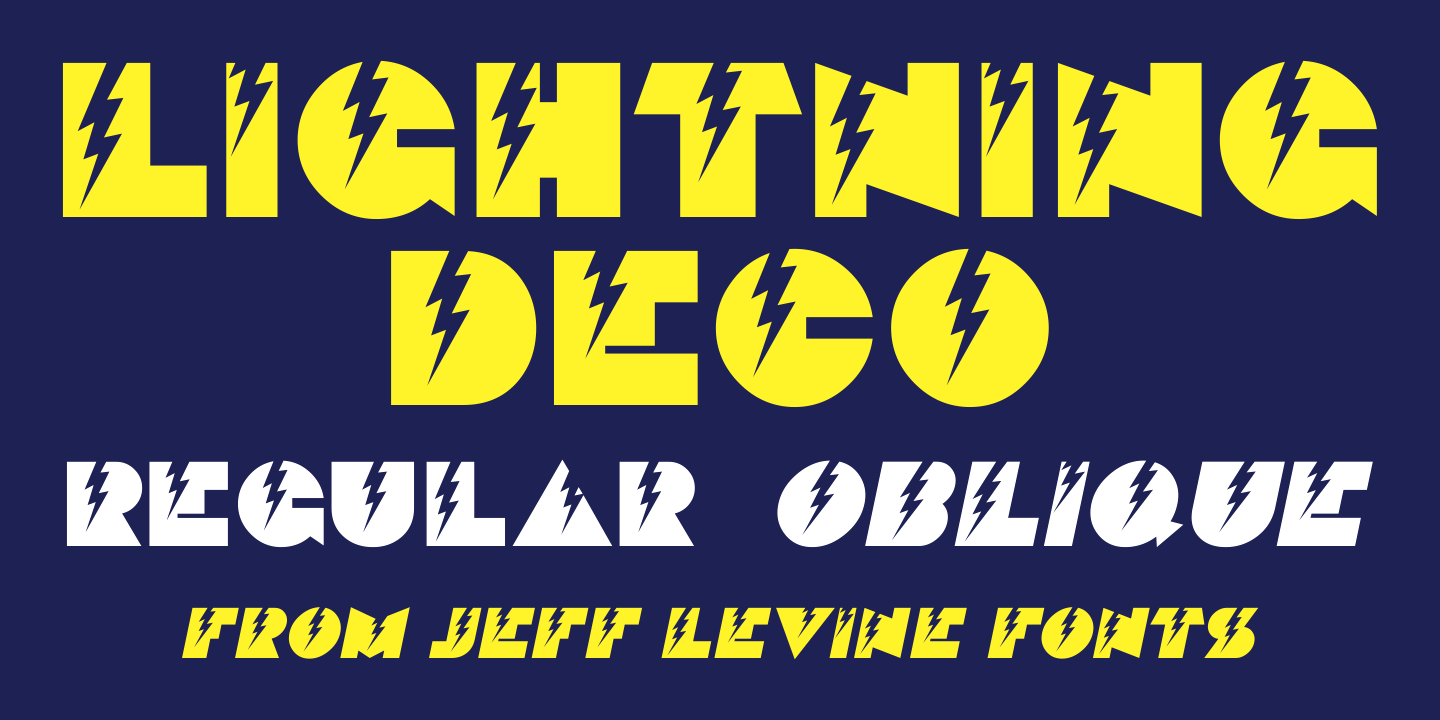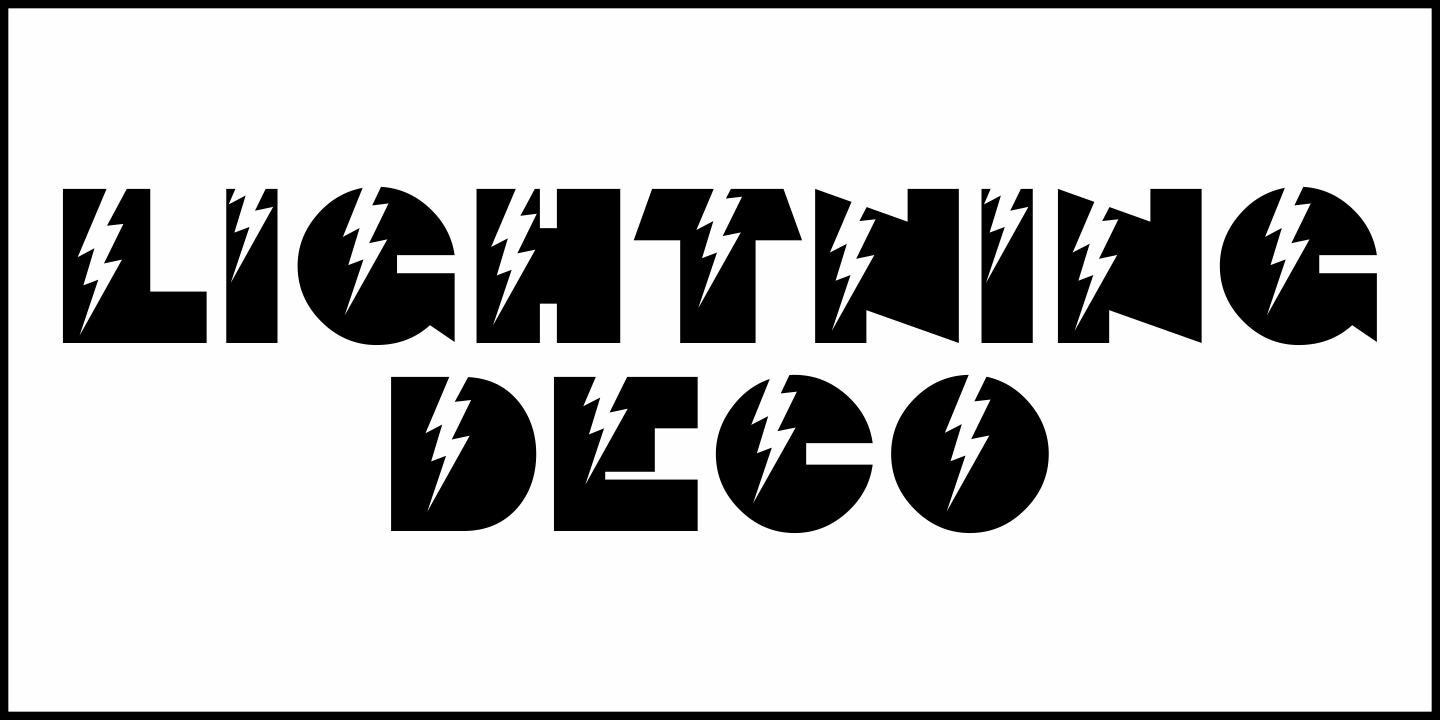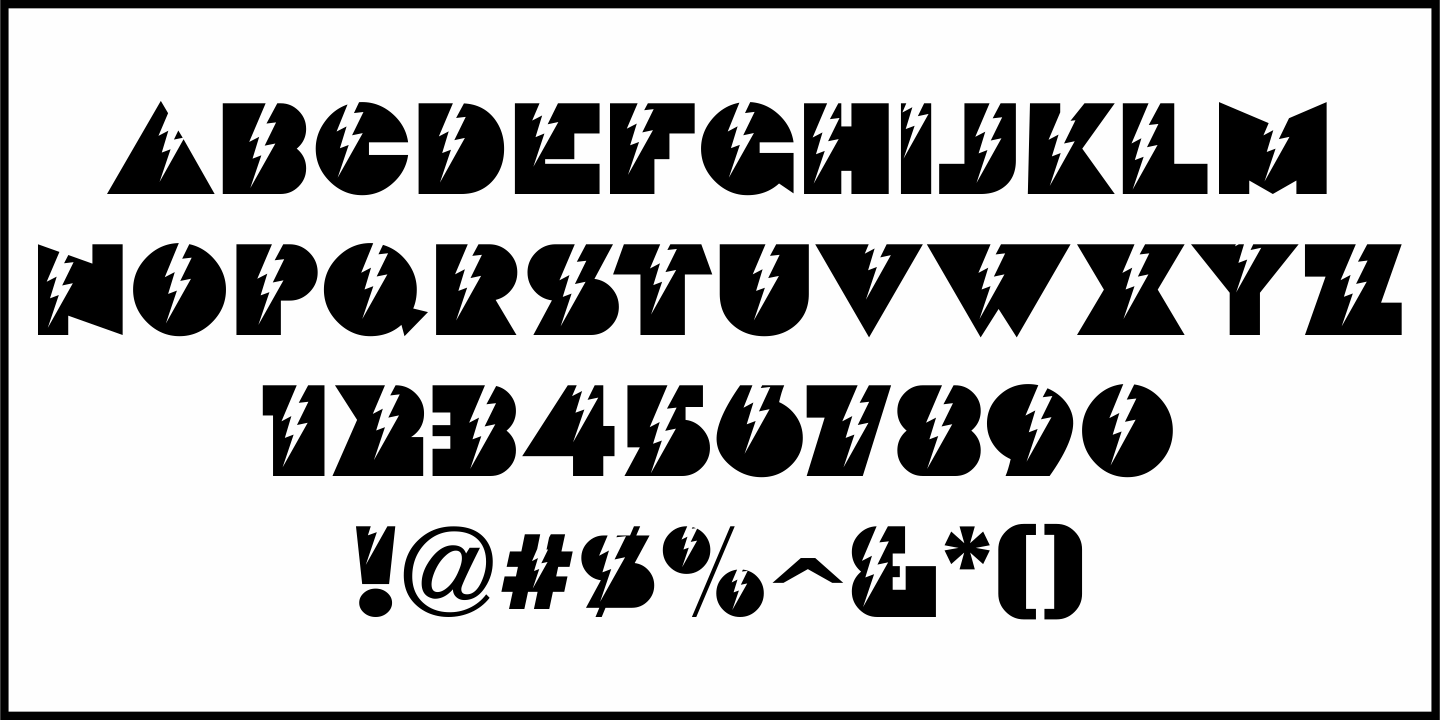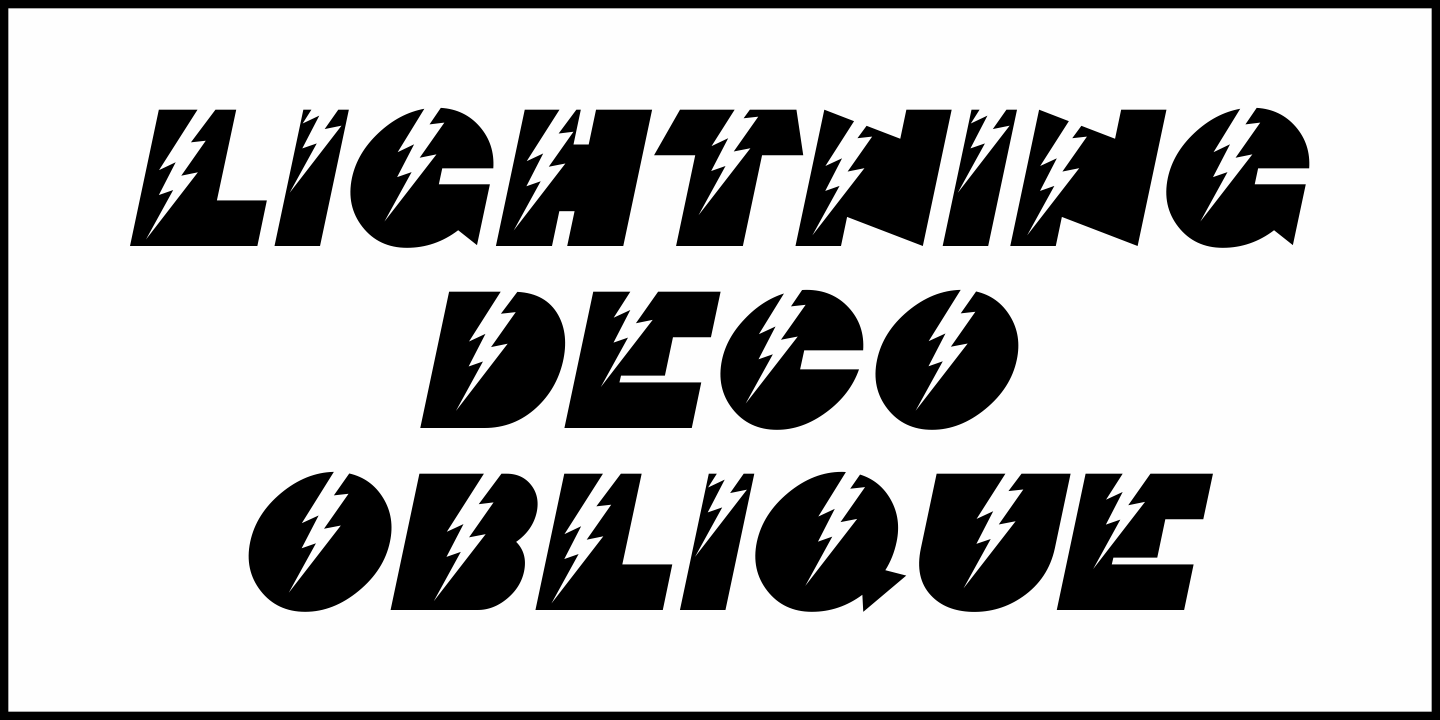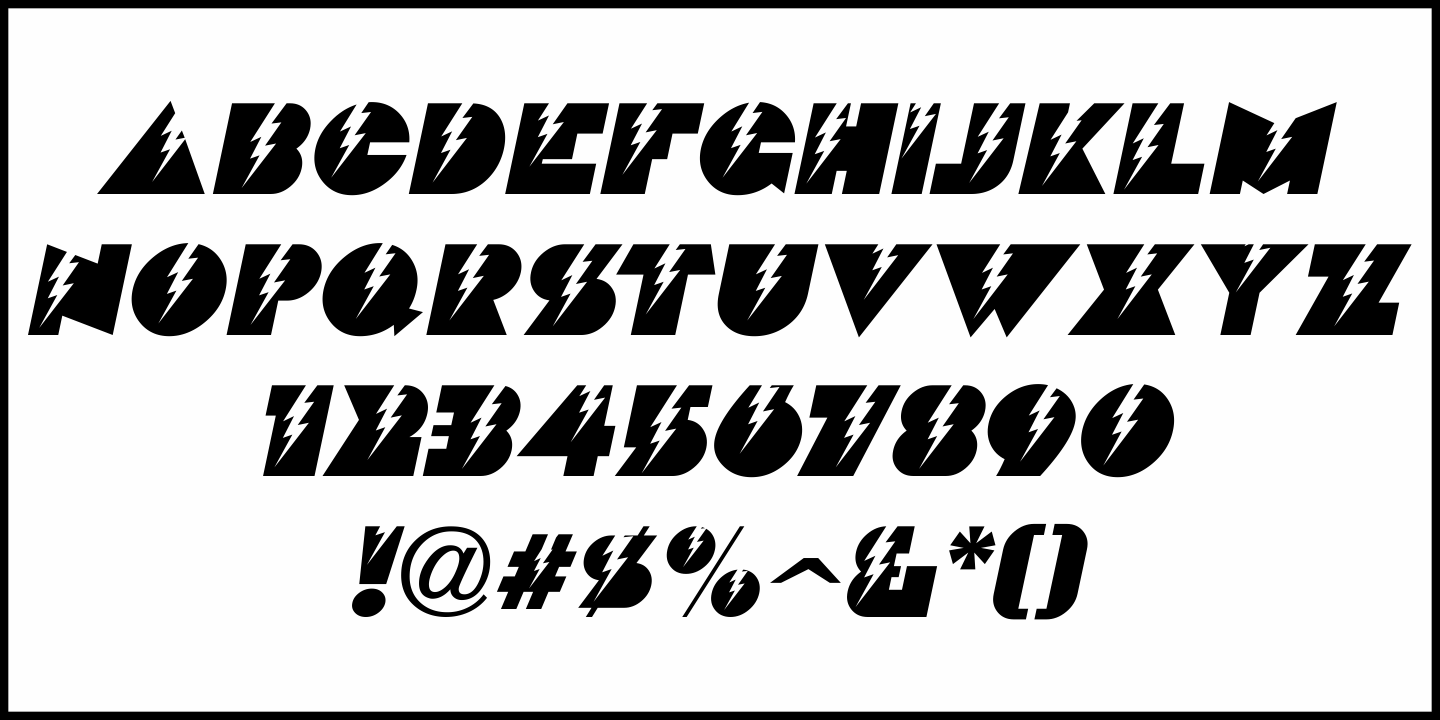
Lightning Deco
What started out as a type design based on the marquee sign from the State Theater in Altoona, PA [which was showcased in the Sept. 17, 1938 issue of Motion Picture Herald] ran into a problem.
By itself, the characters looked like too many similar solid (counterless) Art Deco sans designs. Not wanting to waste a perfectly useful idea, lightning bolts were cut into the letters and it was transformed into a novelty display font.
Lightning Deco JNL is available in both regular and oblique versions.